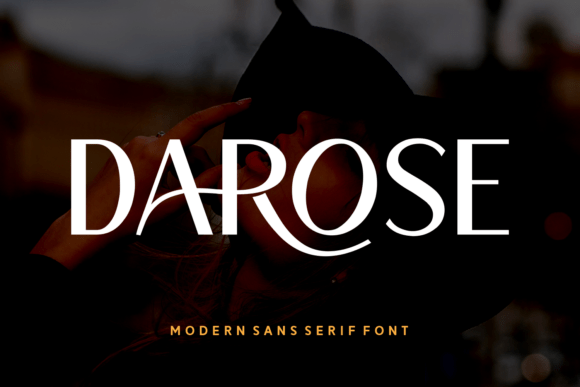
The Perfect Blend of Minimalism and Elegance
As a designer, you’ve likely found yourself staring at a blank page, trying to convey the perfect message to your audience. You’ve tried countless font combinations, but nothing seems to capture the essence of your vision. It’s in these moments of creative frustration that a game-changing font can make all the difference.
Enter the Darose Font, a modern sans serif font that exudes luxury and fashion-forward elegance. With its clean structure and beautifully exaggerated curves, Darose is the perfect addition to any design project. Whether you’re working on editorial layouts, branding, or high-end packaging, Darose Font is sure to make your typography unforgettable.
Darose Font Key Features
- Font Family: Darose is a sans-serif font family.
- Character Count: The font family includes over 1000 characters, including Latin, Cyrillic, and Greek alphabets.
- Unique Characteristics: Darose features a modern and clean design, with a focus on legibility and readability, making it ideal for body text and headings.
Darose Font Review
I recently had the chance to work with the Darose Font, and overall, I was quite pleased with its performance. Here are a few things that really stood out:
- ✨ Unique character set: The Darose Font features a range of quirky and whimsical characters that really add to its charm. From the ornate flourishes to the playful ligatures, there’s a lot to love about this font’s aesthetic.
- ✨ Clear and readable: Despite its decorative nature, the Darose Font is surprisingly clear and easy to read, even at smaller font sizes.
- ✨ Versatile: Whether you’re looking to create a romantic, vintage-inspired design or something more modern and edgy, the Darose Font has the versatility to fit the bill.
Of course, no font is perfect, and the Darose Font is no exception. Here are a few limitations I encountered:
- ⚠️ Limited language support: Unfortunately, the Darose Font doesn’t support a wide range of languages, which may be a problem for designers working on multilingual projects.
- ⚠️ Not ideal for body text: While the Darose Font is great for headlines and titles, it’s not the best choice for large blocks of body text, where readability is paramount.
Overall, I’d say the Darose Font is a solid choice for designers looking to add some personality and flair to their work. Just be aware of its limitations and use it judiciously to get the most out of its unique charms.
The Darose Font is ideal for:
- Book covers and magazine layouts
- Any design that requires a touch of elegance and sophistication.
Alternatives to Darose Font
Playfair Display is an elegant, high-end serif font suitable for titles, headings, and luxury branding. It features intricate details and ornate flourishes, making it perfect for high-end fashion, jewelry, or fine dining brands.
Comparison to Darose Font: While both fonts are elegant, Playfair Display has a more luxurious and ornate feel, whereas Darose Font is more modern and clean. Use Playfair Display when you want to convey sophistication and high-end quality.
Merriweather is a classic serif font designed for body text and long blocks of content. It features a sturdy and timeless feel, making it suitable for academic, historical, or traditional publications.
Comparison to Darose Font: Merriweather has a more traditional and classic feel, whereas Darose Font is more modern and sleek. Use Merriweather when you want to convey a sense of tradition and authority.
Bodoni is a classic serif font designed for titles, headings, and high-end branding. It features a elegant and refined feel, making it perfect for luxury fashion, jewelry, or fine dining brands.
Comparison to Darose Font: Bodoni has a more classic and elegant feel, whereas Darose Font is more modern and clean. Use Bodoni when you want to convey sophistication and high-end quality.